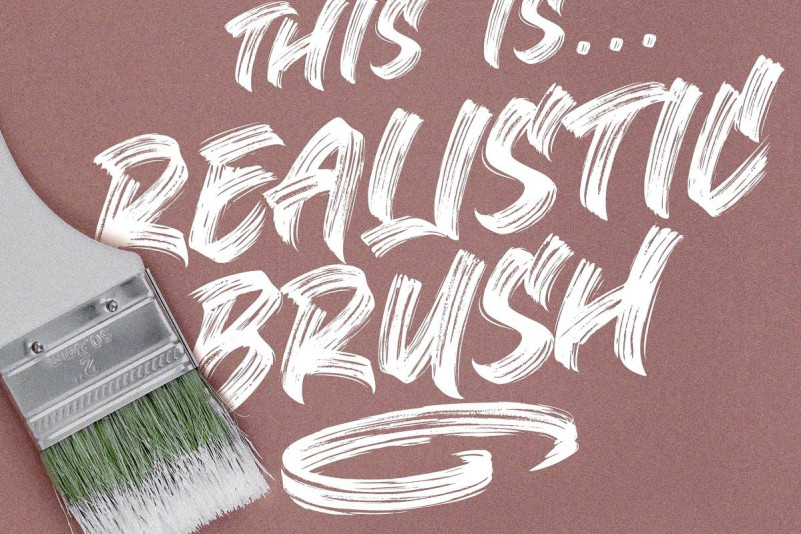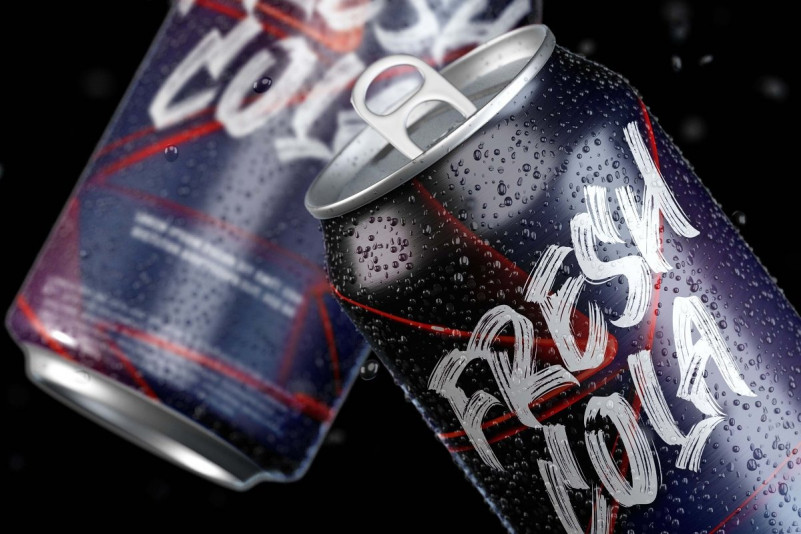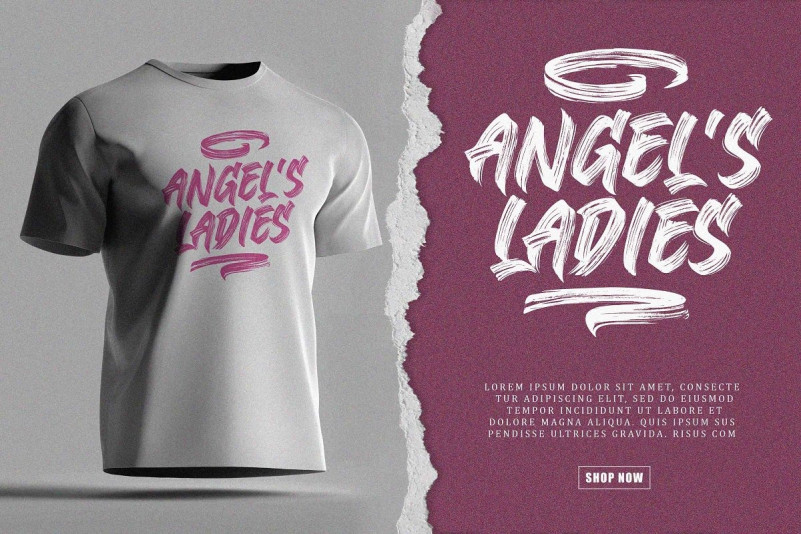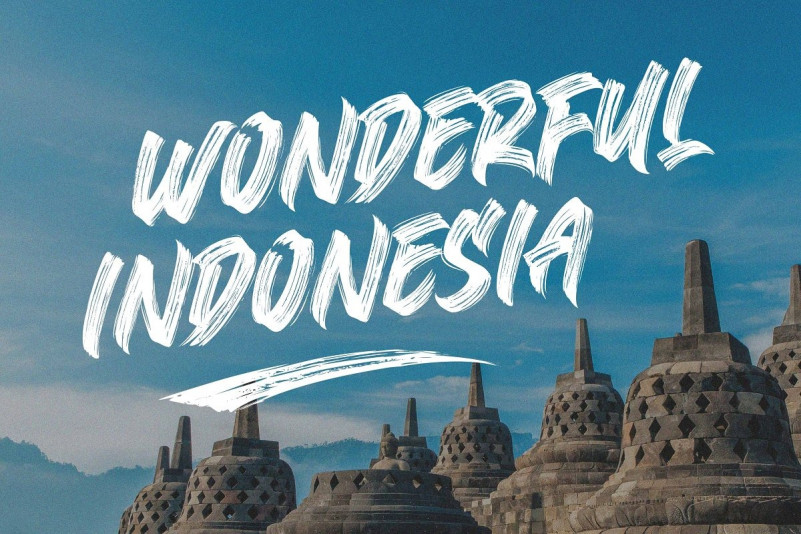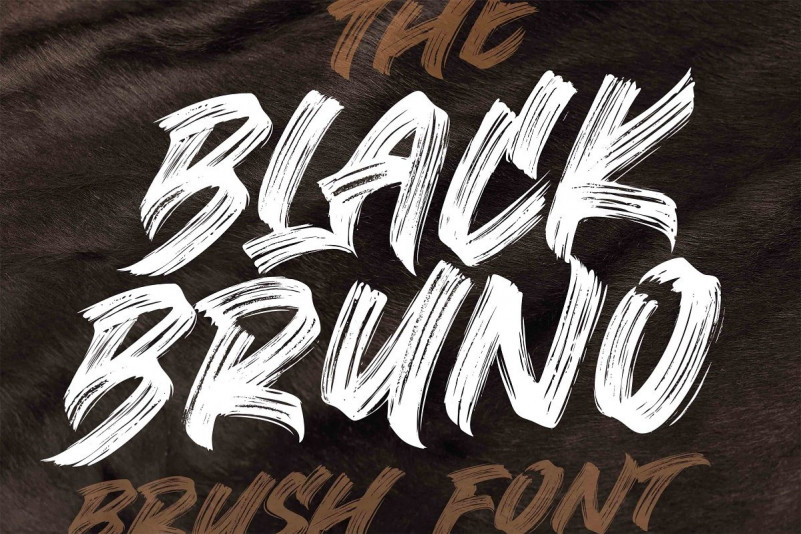
Black Bruno Brush Font
Thank you for looking Black Bruno Font. This is a street-wise brush font bursting, With extra attention to quick strokes and sharp details. It contains a full set of lower & uppercase letters, a large range of punctuation, numerals, and multilingual support. It’s a supercharged brush font style, street-wise brush font bursting with energy. With extra attention to quick strokes and sharp details. This font is perfect for challenging jobs, titles, t-shirts, websites, hoodies, clothing, headline, logotype, branding, advertising, event and various print and digital media with energy. Brush King is ideal for logos, apparel, quotes, product packaging, or anything which needs a typographic turbo-boost.